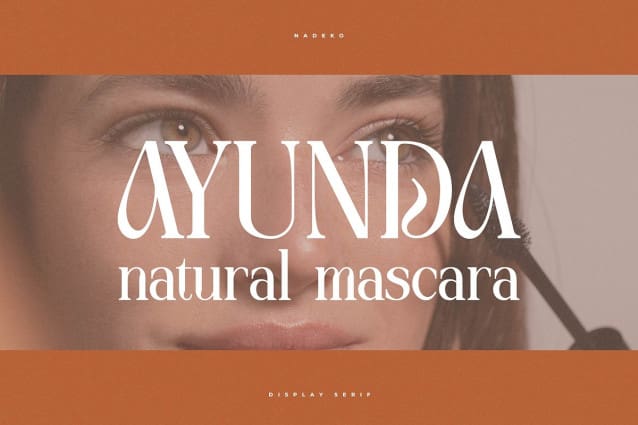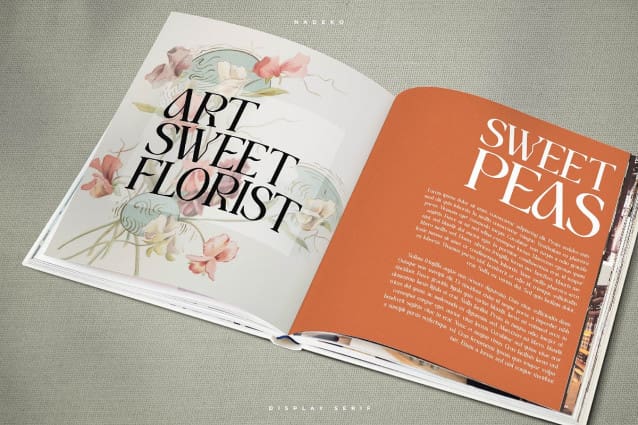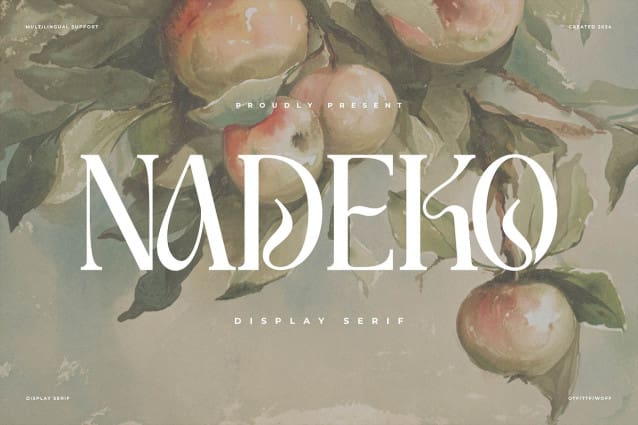
Nadeko Font
Nadeko Font | Display Serif, from Denustudios, suitable for any projects such as: logos, branding projects, homeware designs, product packaging, mugs, quotes, posters, shopping bags, t-shirts, book covers, name card, invitation cards, greeting cards, label, photography, watermark, special events, and all your other lovely projects that need a Display Serif taste.